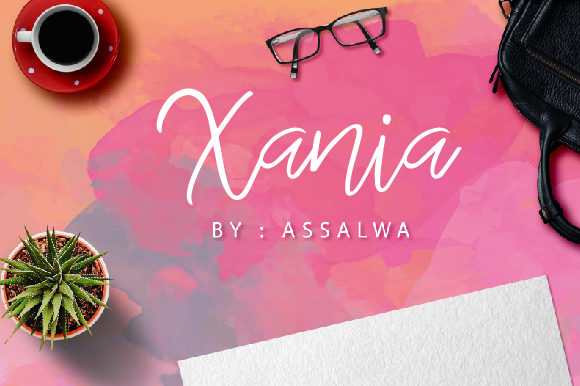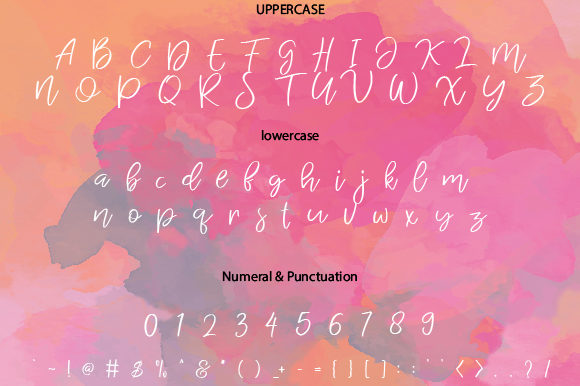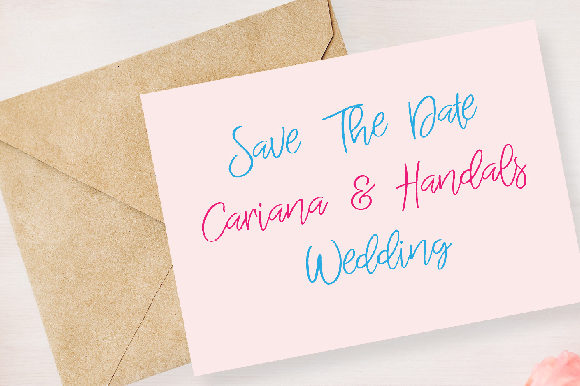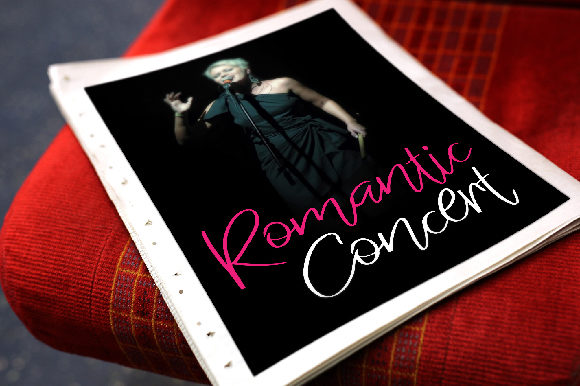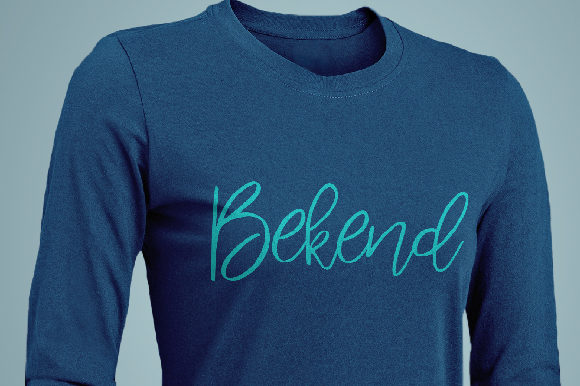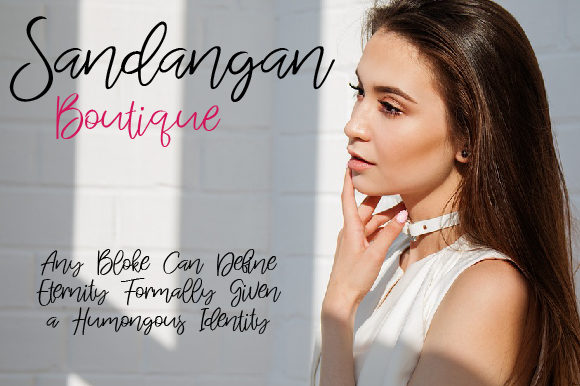
Xania Font
About Xania Font
As a modern script typeface, the beautiful Xania font uses hand-made elements. This stand-out font can be used for wedding card designs, logotypes, website headers, fashion designs and many more.